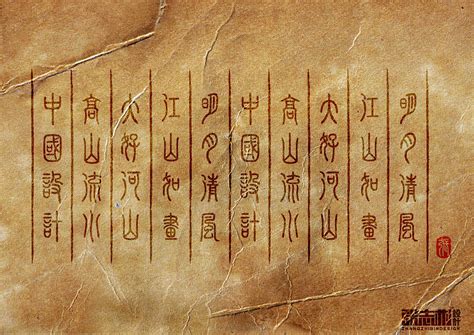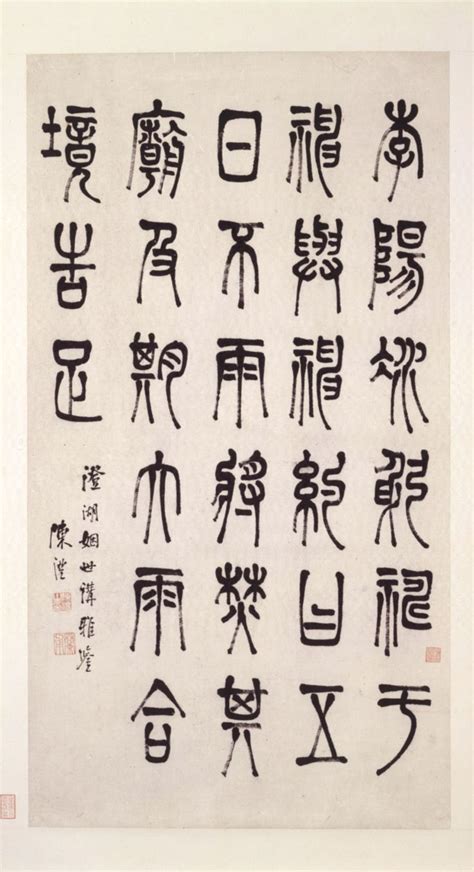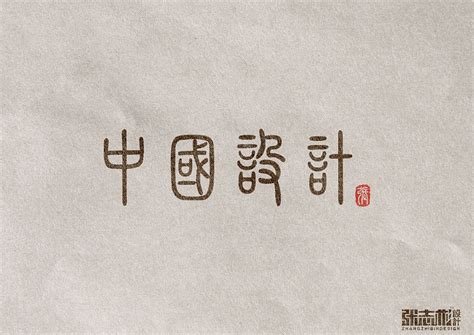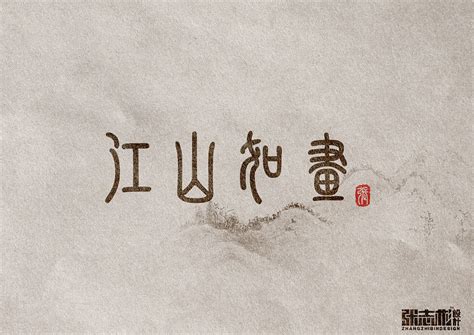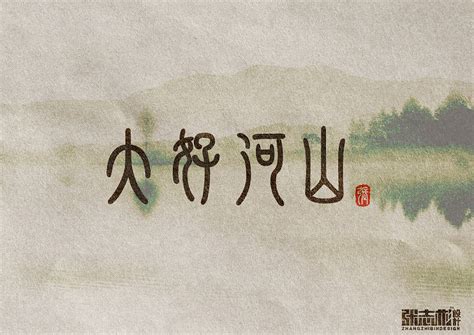
Search from a wide range of typography fonts. Zhuànshū) is an ancient style of writing chinese characters that was common throughout the latter half of the 1st millennium bc. These problems i've mentioned might be the same problem.
I debated what to use for the title, but felt chinese seal script was most appropriate. The japanese style font has been downloaded 133,066 times.
This is a list of notable cjk fonts (computer fonts which contain a large range of chinese/japanese/korean characters). Create documents using asian languages. Fontstructions tagged with seal script. To use these languages properly on windows, install the language and font packs for the particular language you want to use. These problems i've mentioned might be the same problem. From a quick internet glance it doesn't even look like the chinese used seals until the 3rd century bc. Zhuànshū) is an ancient style of writing chinese characters that was common throughout the latter half of the 1st millennium bc. Japanese available in windows and mac os x version. Free japanese font is all about japanese fonts that are free to download! I have downloaded fonts that support the korean language, i apply the font to my tmp text and the only issue you would run into with version 1.4.0 of tmp is the need to switch the scripting runtime the legacy text system and ui text does not support proper line breaking for chinese, japanese and. At the same time, we also provide more than 100000+ chinese font logo design pictures for you to browse. Online dictionary of chinese, japanese & asian seal carving patterns for oriental signature & name seals to sign calligraphy & sumi artworks. Kanji is a japanese writing system based on modified chinese characters.
Download the japanese style font by jonathan s. Zhuànshū) is an ancient style of writing chinese characters that was common throughout the latter half of the 1st millennium bc. Every font is free to download! This is a list of notable cjk fonts (computer fonts which contain a large range of chinese/japanese/korean characters). Kanji is a japanese writing system based on modified chinese characters. Japanese available in windows and mac os x version. Chinese seal script is an ancient style of chinese calligraphy. Install relevant language and font packs (windows). But it seems these standard fonts do not support ckj scripts, what is a font i can copy to fonts that will add support for these scripts for my java i couldn't find a font that supported chinese, japanese and korean so, i had to create my own. Welcome to chinesefontdesign.com, you can download more than 1000+ chinese fonts here for free. Today, the country is still as fascinating as when it first welcomed visitors to… Create documents using asian languages. I have downloaded fonts that support the korean language, i apply the font to my tmp text and the only issue you would run into with version 1.4.0 of tmp is the need to switch the scripting runtime the legacy text system and ui text does not support proper line breaking for chinese, japanese and.
Zhuànshū) is an ancient style of writing chinese characters that was common throughout the latter half of the 1st millennium bc. All handmade wax seal stickers are using flexible real wax and will have a double sided tape at the back of each sticker for easy peel and stick.
Could someone show me a decent font, or send me via you can't do anything in this case except construct your own seal script character for those. We have performed the hard work, having selected japanese fonts manually and presented it in the format which is convenient for use.
We know how hard it is to find free products for commercial purposes. ✓ click to find the best 247 free fonts in the japanese style.
I have downloaded fonts that support the korean language, i apply the font to my tmp text and the only issue you would run into with version 1.4.0 of tmp is the need to switch the scripting runtime the legacy text system and ui text does not support proper line breaking for chinese, japanese and. This site aims to help you download high quality japanese fonts that supports hiragana, katakana, kanji characters which normally hard to find.
To translate english names into chinese characters, you could. All handmade wax seal stickers are using flexible real wax and will have a double sided tape at the back of each sticker for easy peel and stick.
These problems i've mentioned might be the same problem. The page says the font is based on japanese usage which dates the japanese alphabets came significantly later.
Welcome to chinesefontdesign.com, you can download more than 1000+ chinese fonts here for free. I have downloaded fonts that support the korean language, i apply the font to my tmp text and the only issue you would run into with version 1.4.0 of tmp is the need to switch the scripting runtime the legacy text system and ui text does not support proper line breaking for chinese, japanese and.
Install relevant language and font packs (windows). Here are 62 stamps (all basic latin letters and numbers) bearing various chinese characters in seal script.